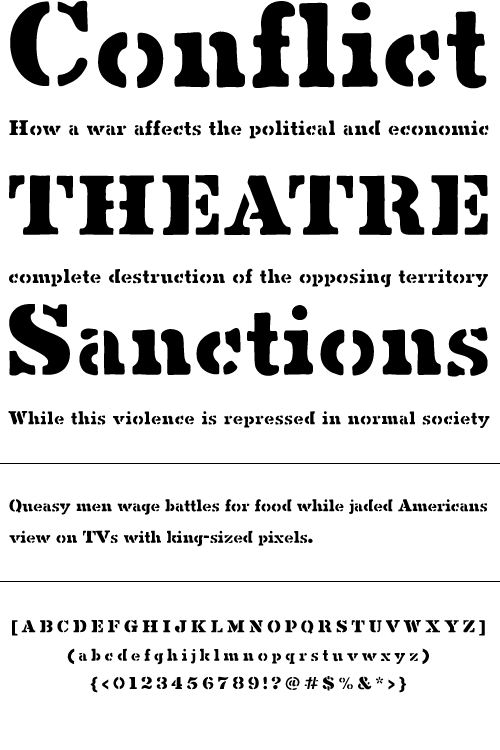
Madison
Madison is a classic slab serif stencil typeface. It is reminiscent of the days before computers when the best way to reproduce letters quickly was to stencil them.
Year Designed:
2007